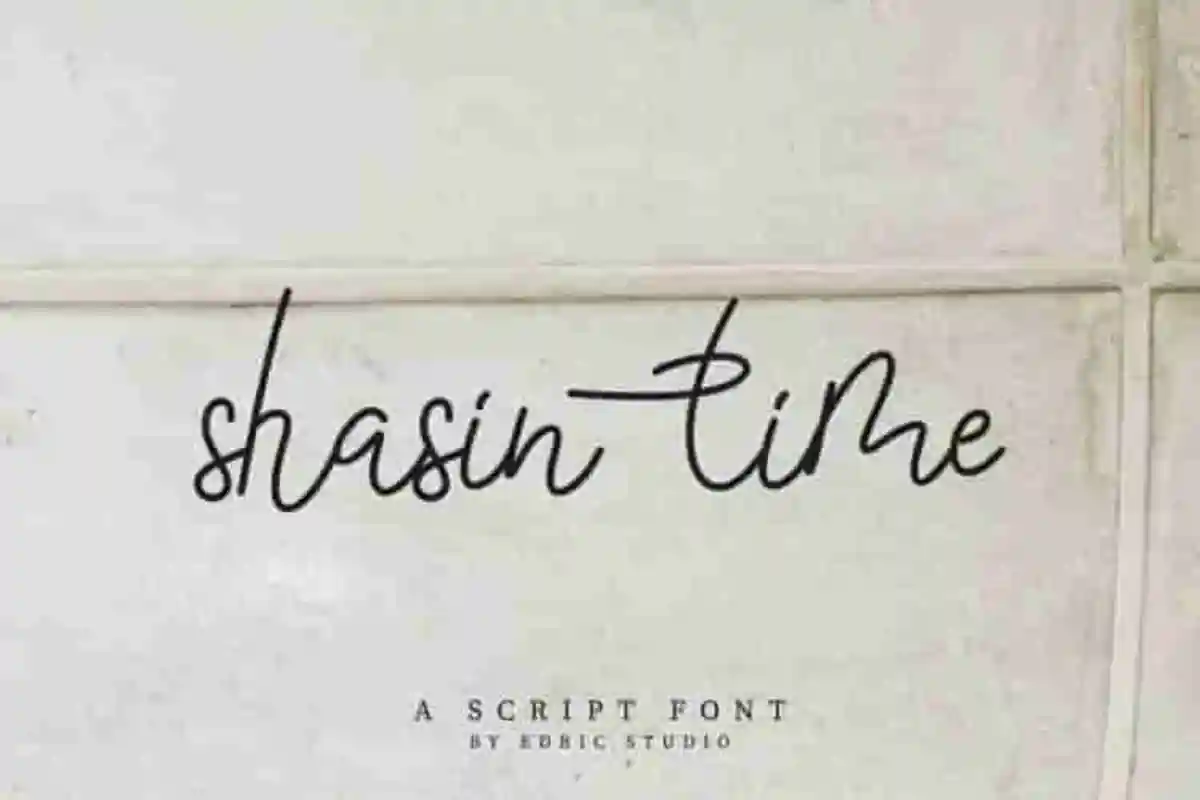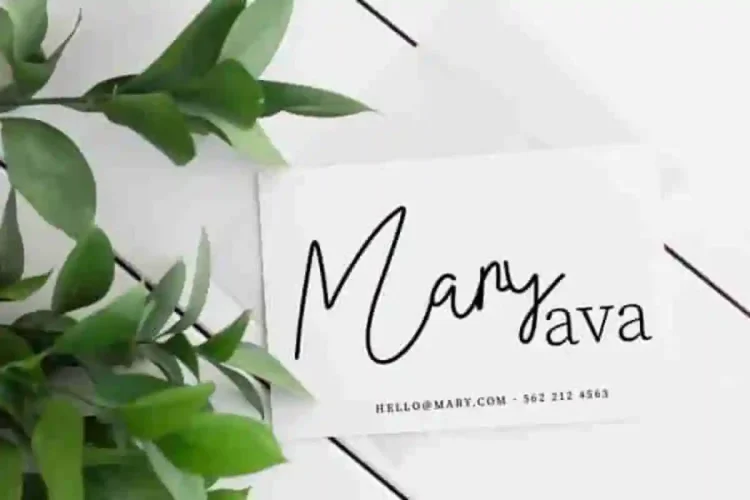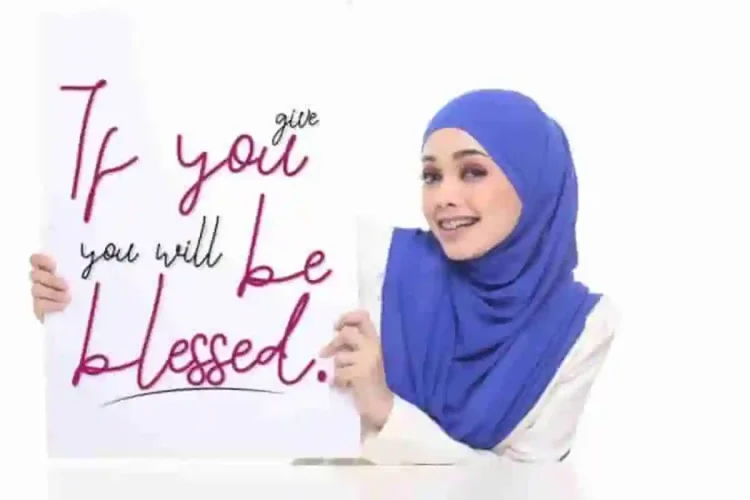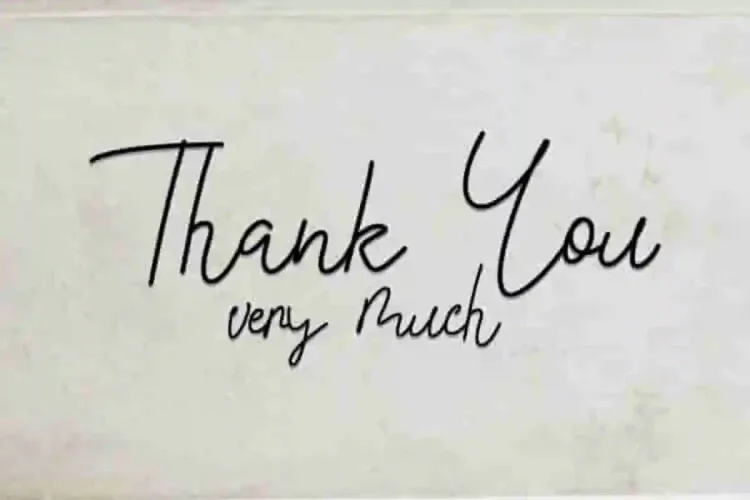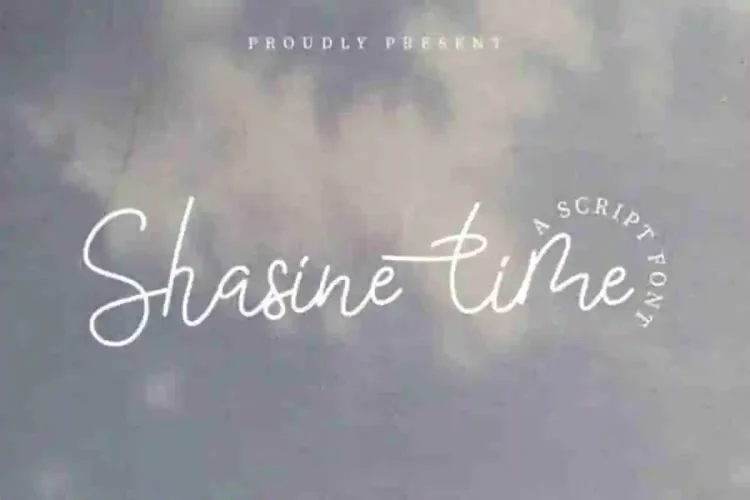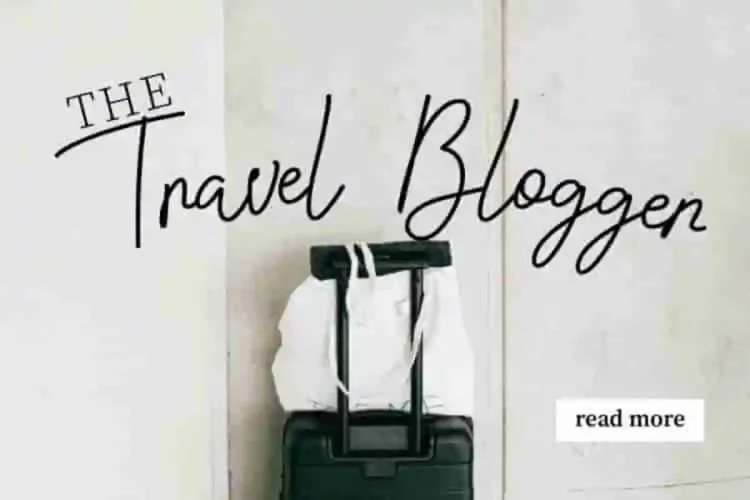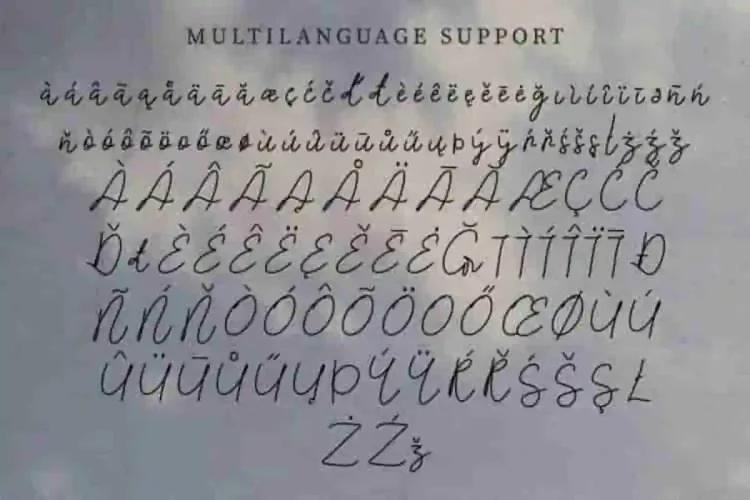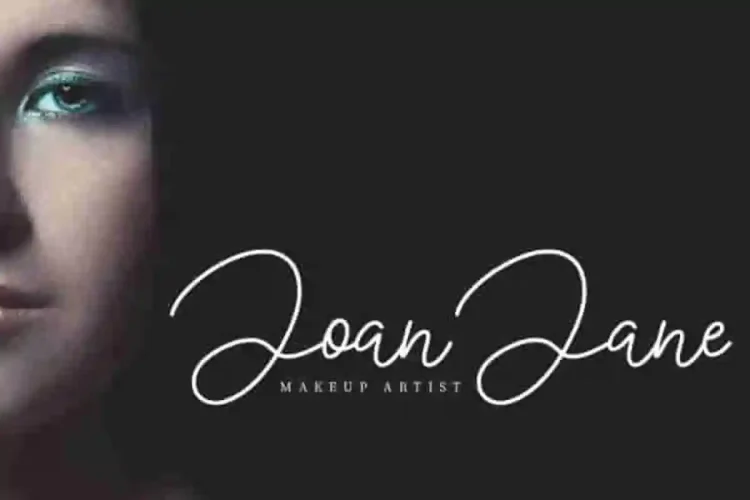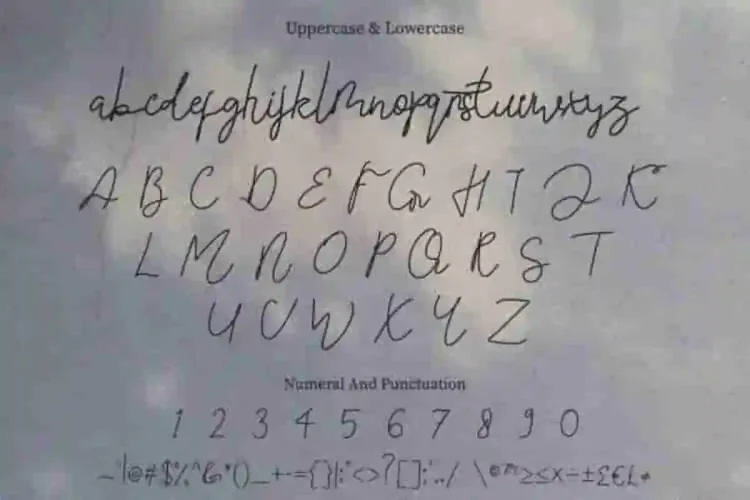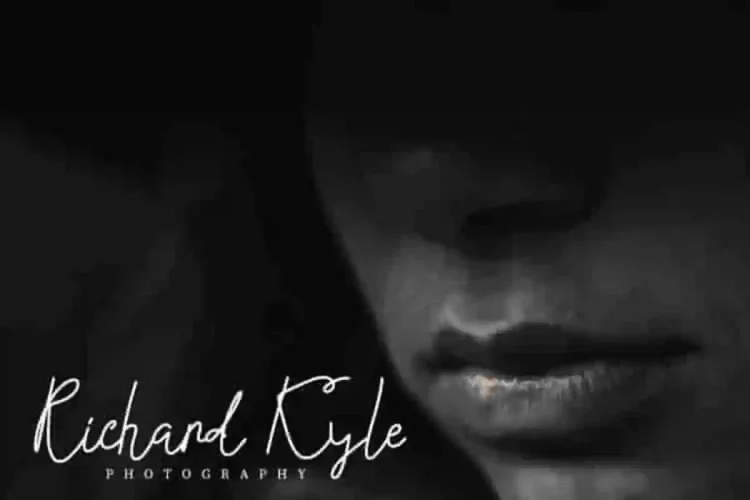
Shasine Time Calligraphy Script Font
Our newest font creation : Shasine time Calligraphy Script Font
This is a script font with calligraphy signature style, handcrafted in our Studio here in Indonesia. The artists/designers of this beautiful tyeface are Yasri and Suci.
Shasine time Calligraphy Script Font is an exclusive signature font family with elegant stylish glyphs. This font has a stunning characters set, perfectly managed with well spaced and kerning.
Shasine time Calligraphy Script Font will be great for any projects including : branding, logo, stationery, business card, signage, flyer, brochure etc. Almost all industries will be match for this typeface: wedding, events, real estate, architect, law firm, florist, gardening, makeup artist, travel, hotel, musician etc.